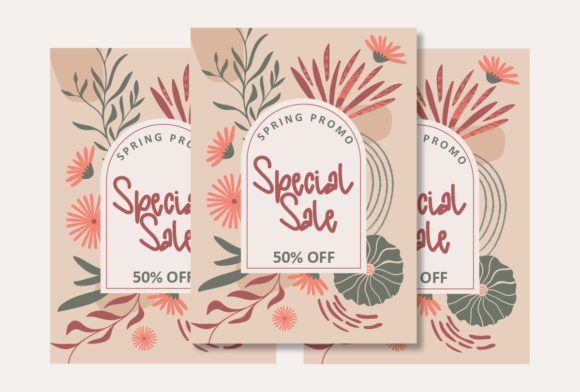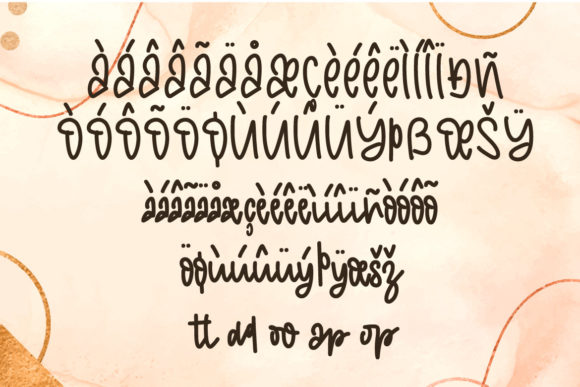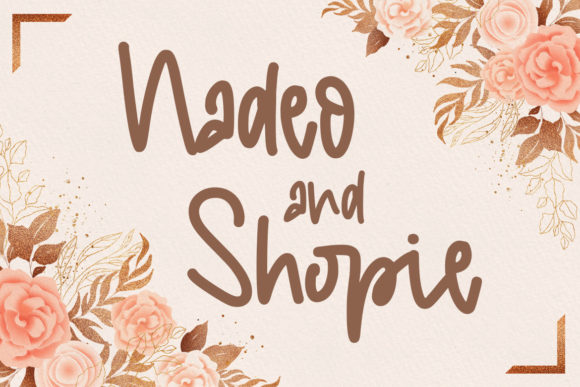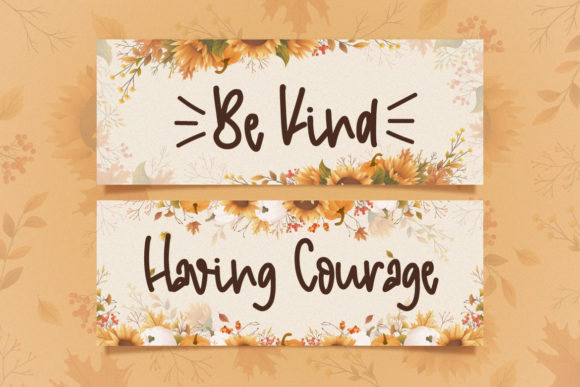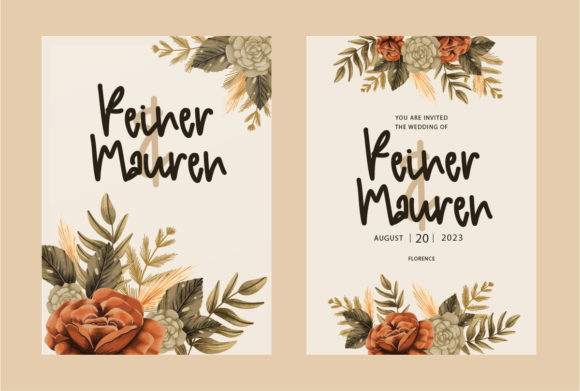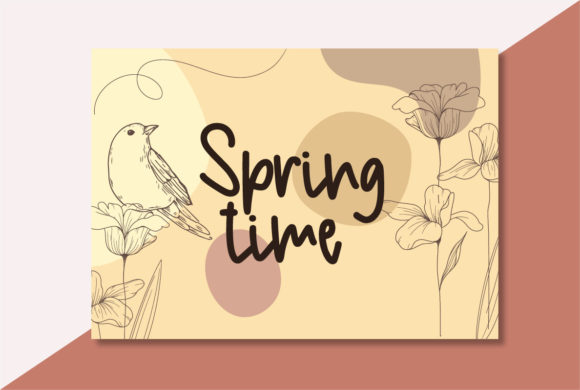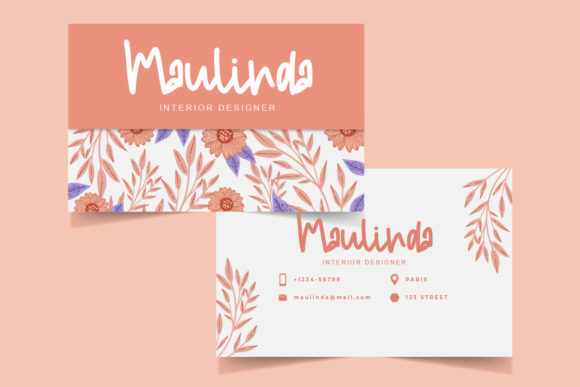
About Kholia Maddia Font
Kholia Maddia is a cool, stylish, asymmetrical handwritten font. It is the best choice for creating eye catching logos, branding and quotes. Every letter has a unique and beautiful touch, which will make your design come alive!